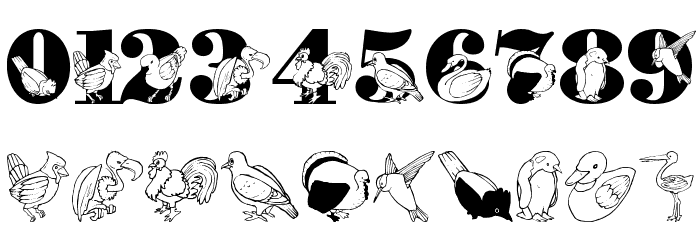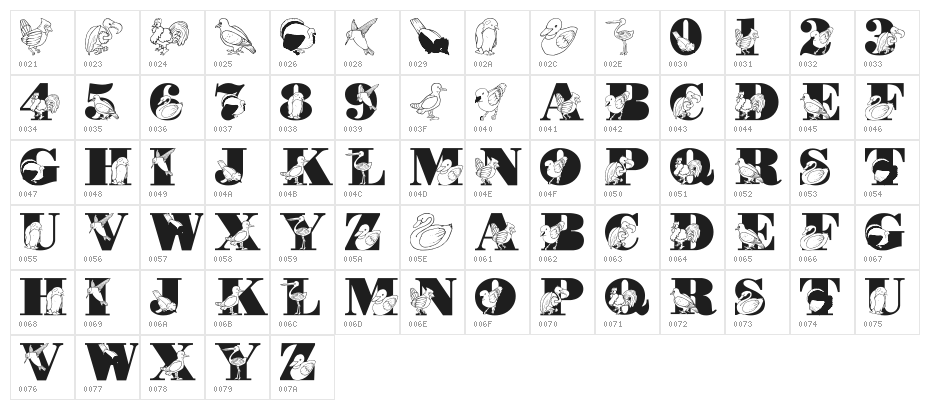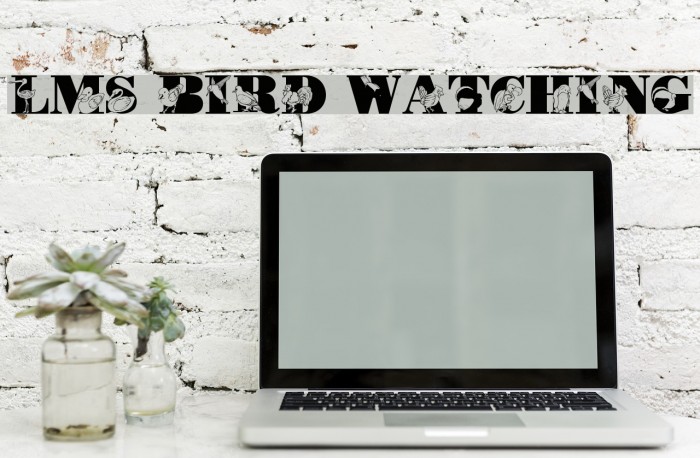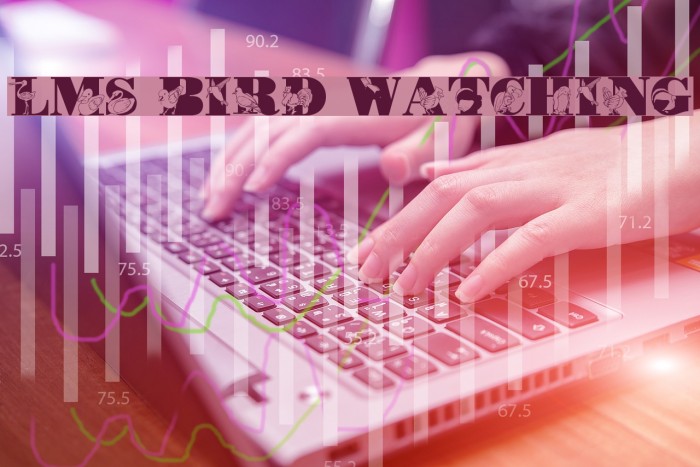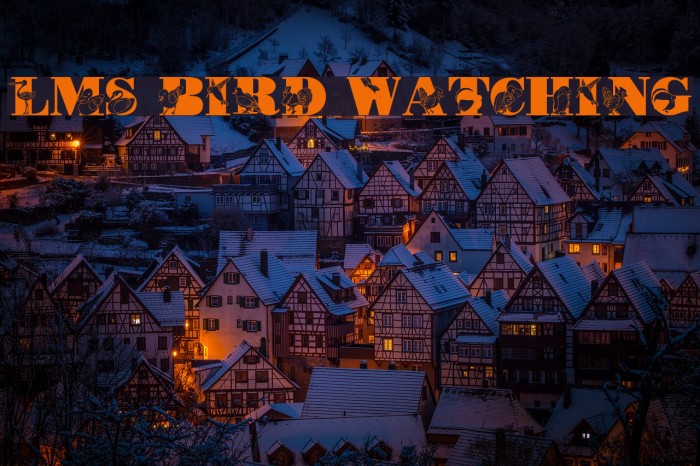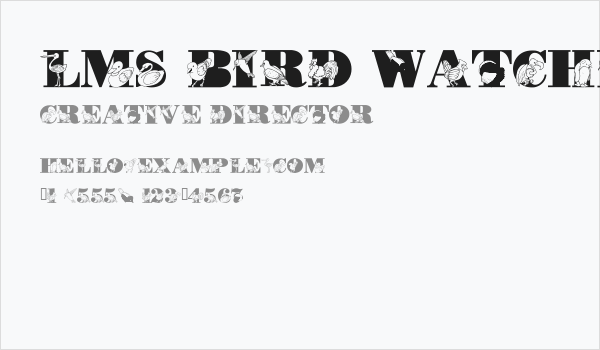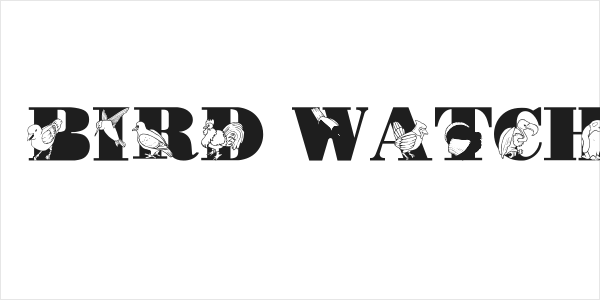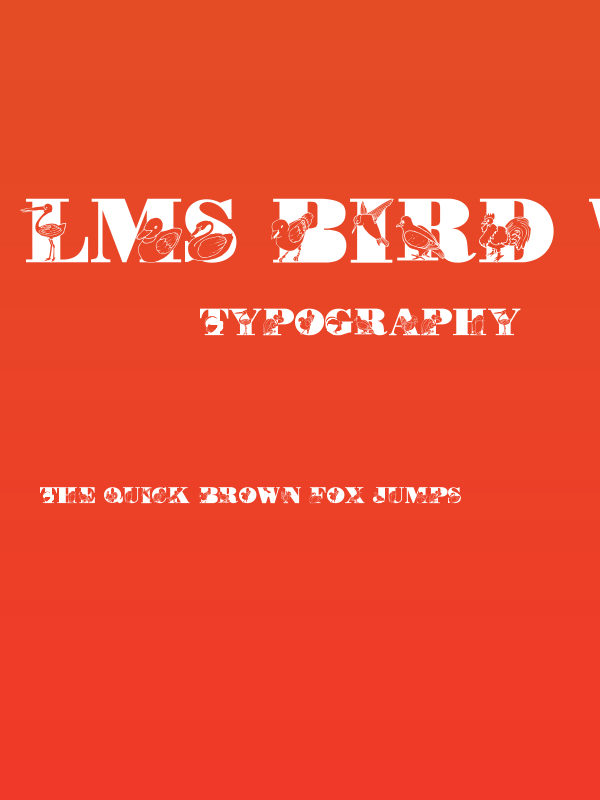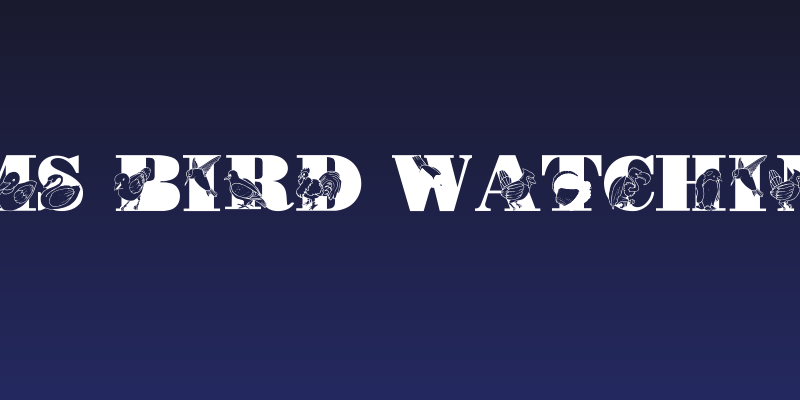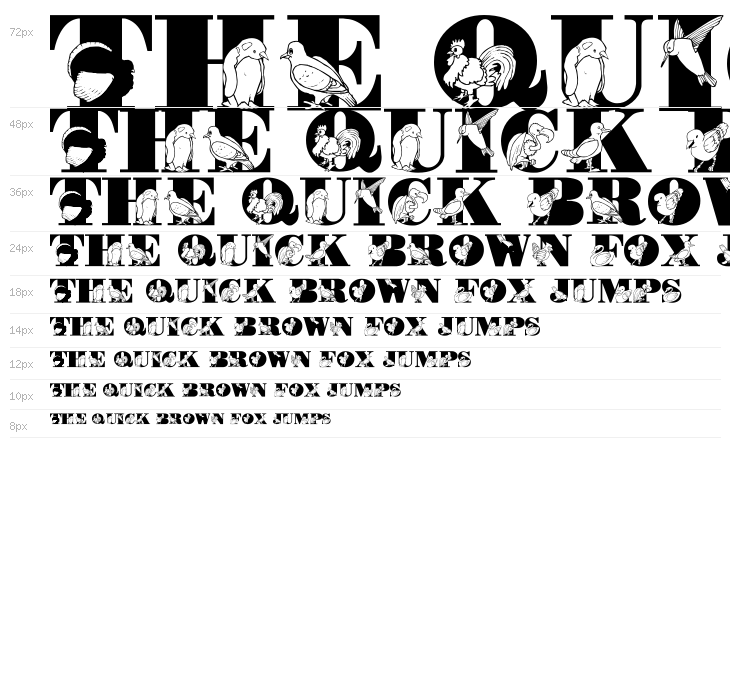
LMS Bird Watching Font
LMS Bird Watching Description
This decorative font features a unique blend of bold, uppercase letters and numbers, each adorned with intricate bird illustrations. The characters are designed with a strong, solid base, providing a striking contrast to the detailed bird motifs that fill the interior spaces. This combination creates a playful yet sophisticated look, ideal for projects that require a touch of nature or whimsy. The font maintains a consistent weight and width across all characters, ensuring a cohesive appearance. The detailed bird illustrations add a layer of complexity and charm, making it a standout choice for creative designs.